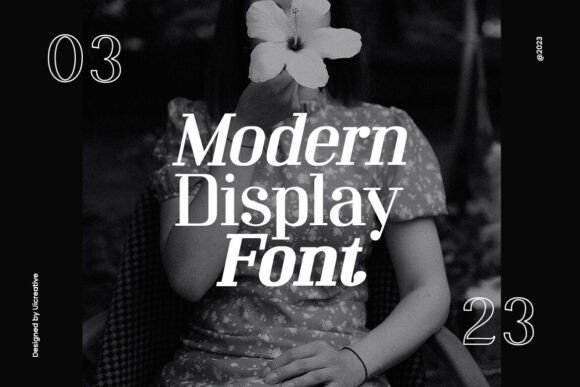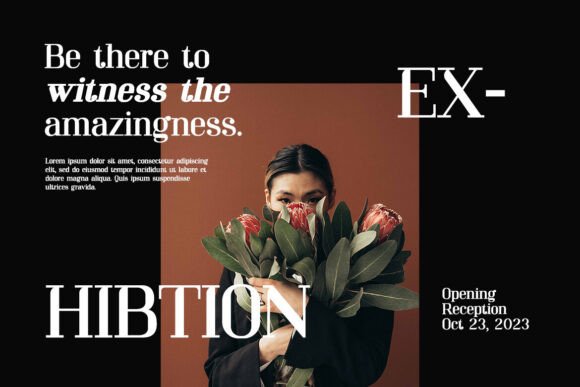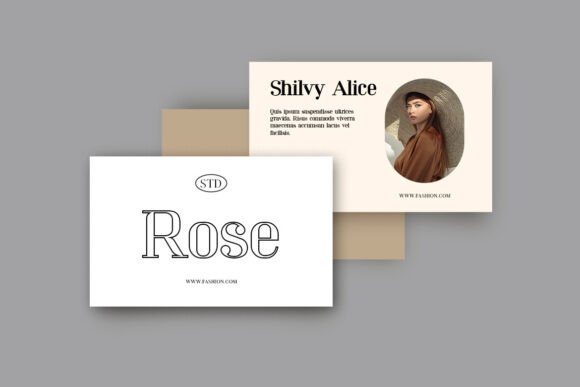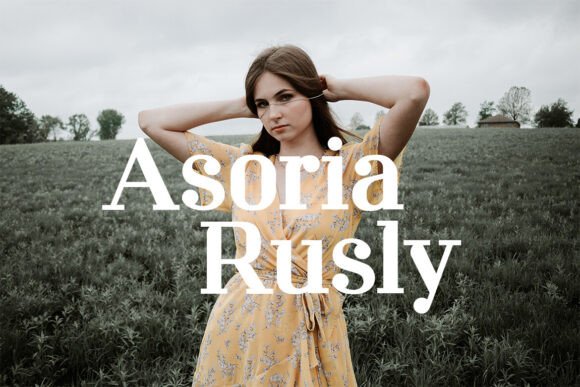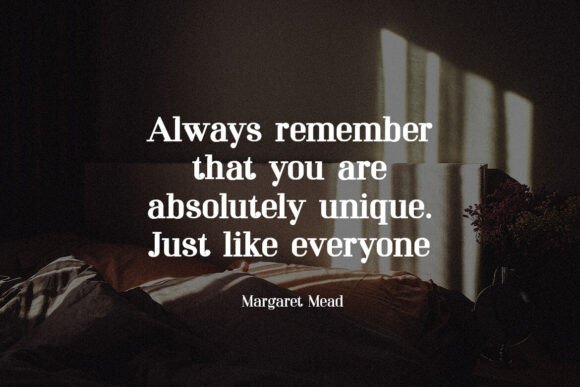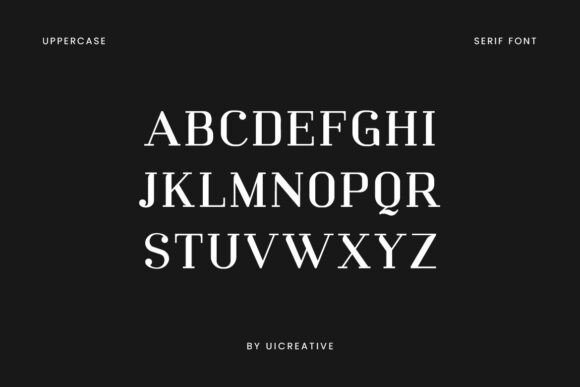
Introduction to Mechanized Font
As designers, we’ve all had that moment when a single font can elevate an entire project. For me, it was the first time I saw a beautifully crafted logo with the Mechanized Font – its sleek, modern lines and sophisticated feel instantly caught my attention. I knew right then that I had to learn more about this incredible design resource.
The Mechanized Font is a high-quality, modern display serif family font that exudes elegance and style. Its versatility makes it perfect for a wide range of creative projects, from signature and stationery to logo design and magazine covers. With its transparent background and free download option, it’s an invaluable resource for designers looking to add a touch of sophistication to their work.
Whether you’re working on a high-end fashion brand or an editorial design project, the Mechanized Font is sure to impress. Its ability to convey both masculine and feminine qualities makes it an excellent choice for designers seeking a font that can adapt to any style or theme.
Key Features of Mechanized Font
- Designed with precision and attention to detail, resulting in a crisp and clean aesthetic
- Unique mechanized design elements, adding a touch of industrial chic to any creative project
Honest Review: Mechanized Font
I recently stumbled upon the Mechanized Font and was excited to give it a try for my current design project. As a designer, I’m always on the lookout for high-quality fonts that can elevate my creative work.
One of the things I appreciate about the Mechanized Font is its modern and futuristic feel, which works well for tech-related projects or anything that needs a touch of industrial chic ✨. The font also comes in various weights, which provides a lot of flexibility when it comes to styling your text.
- Works well for modern and futuristic designs ✨
However, I do think the font could benefit from more customization options, such as additional ligatures or a more extensive character set ⚠️. Additionally, some users may find the font a bit too bold or overpowering, so it’s essential to use it judiciously.
Overall, I’m quite impressed with the Mechanized Font and would definitely recommend it to designers who are looking for a high-quality font for their creative project.